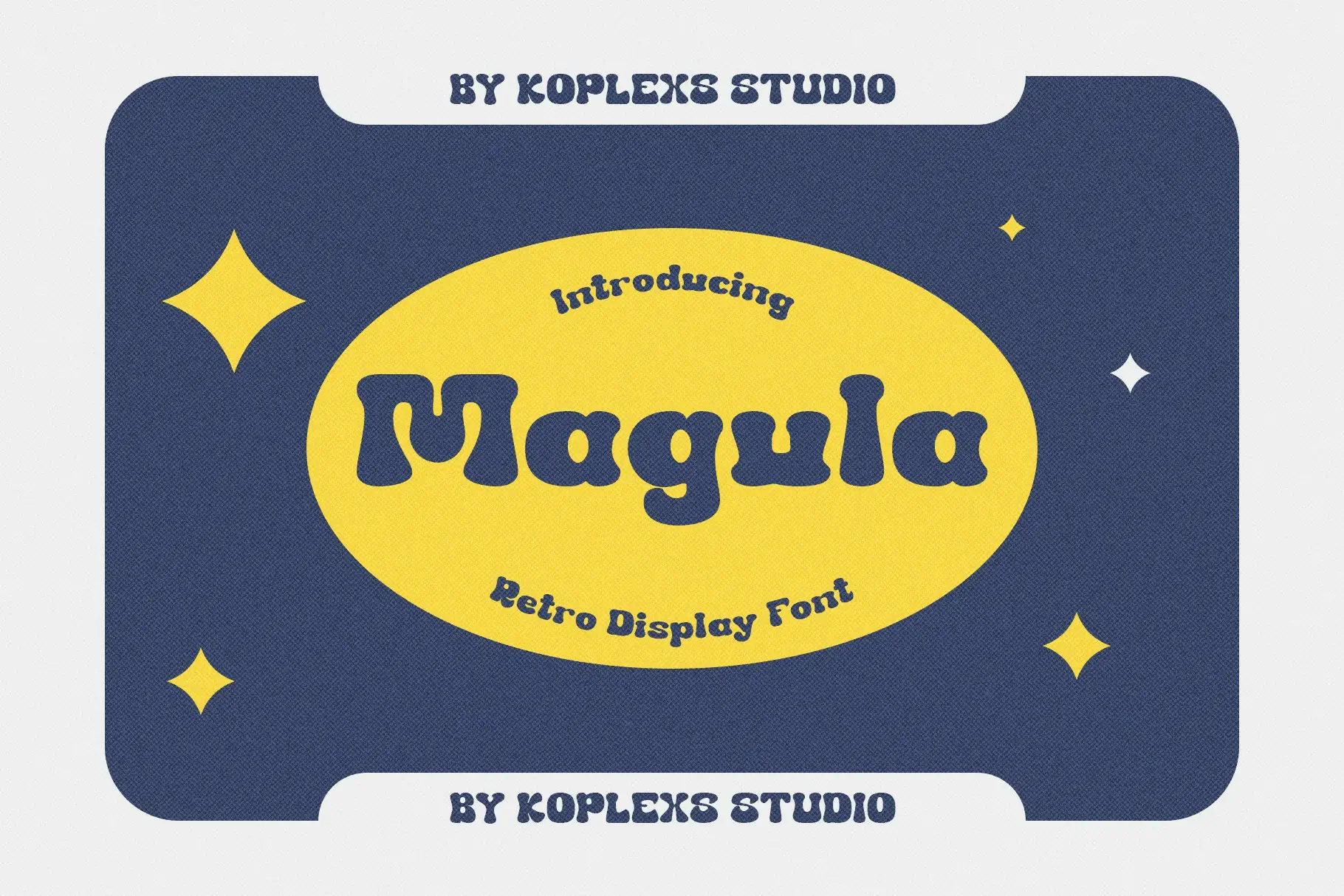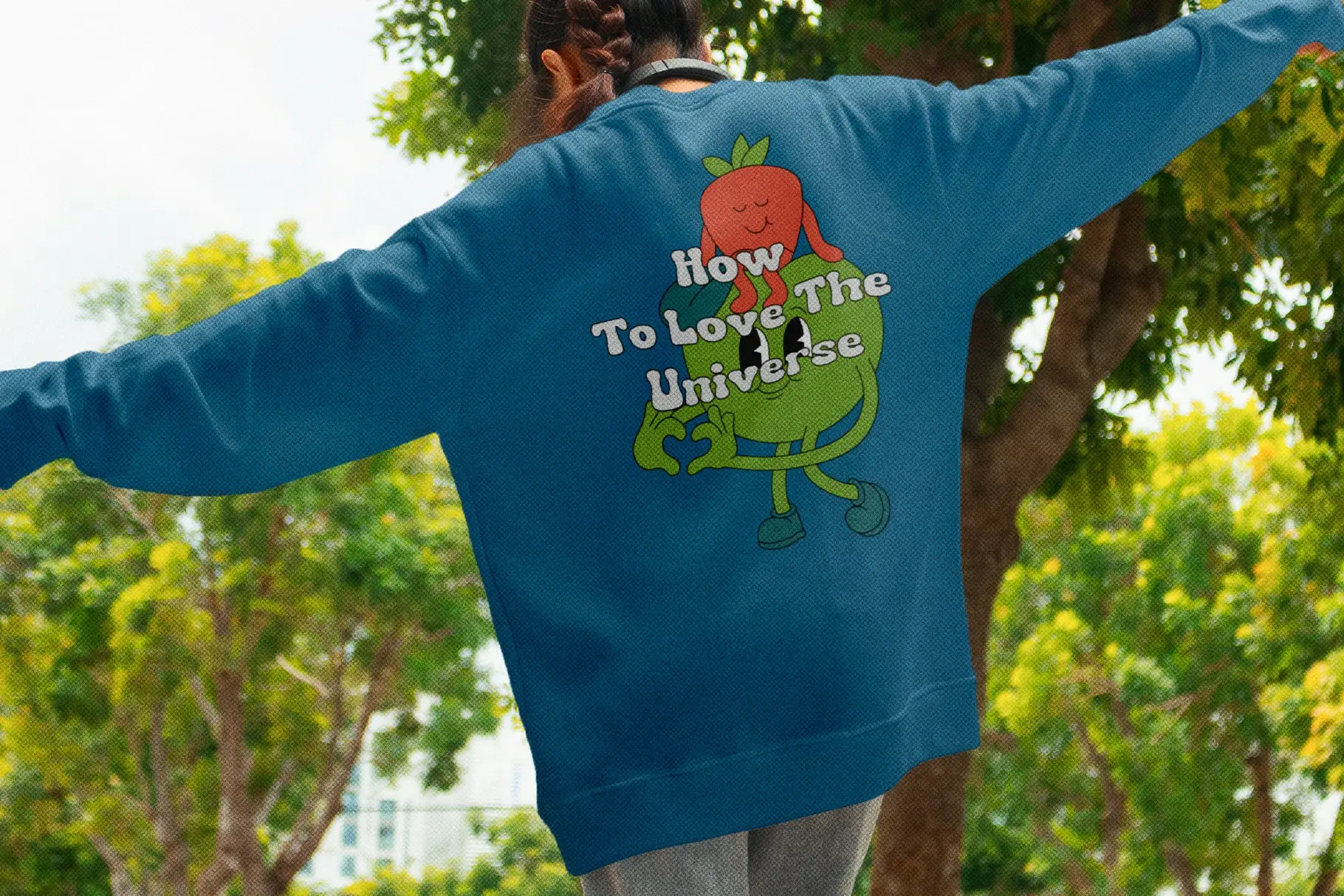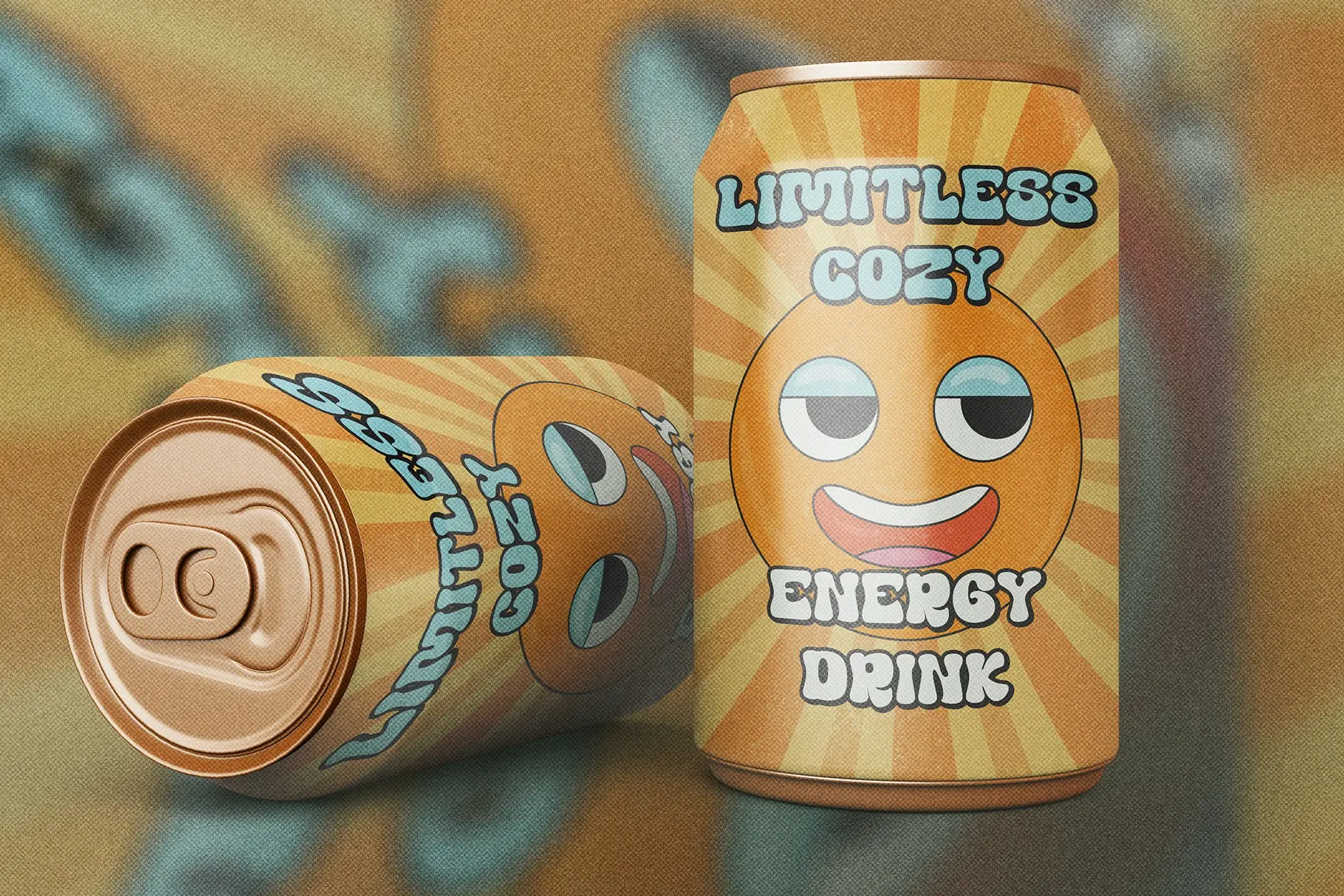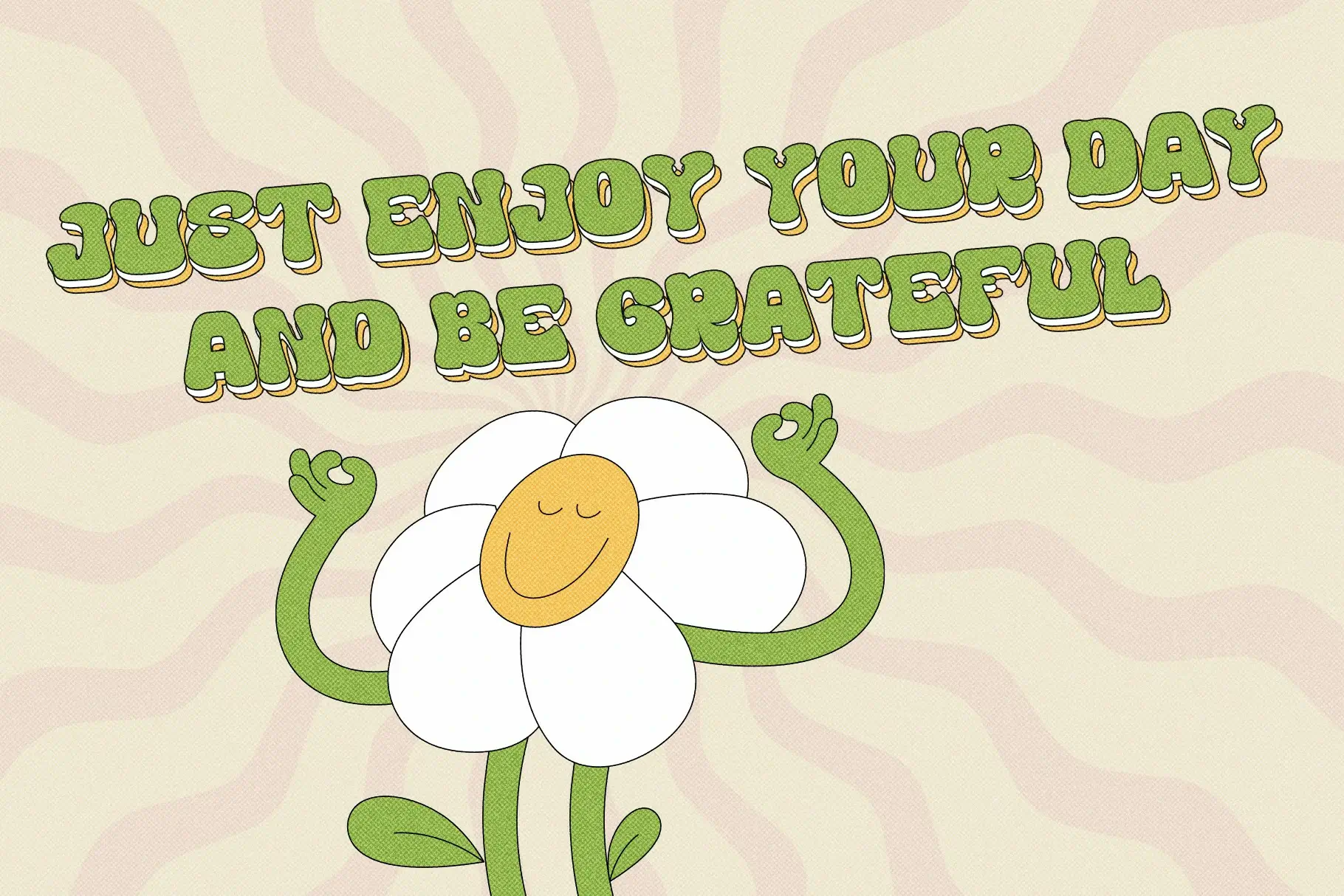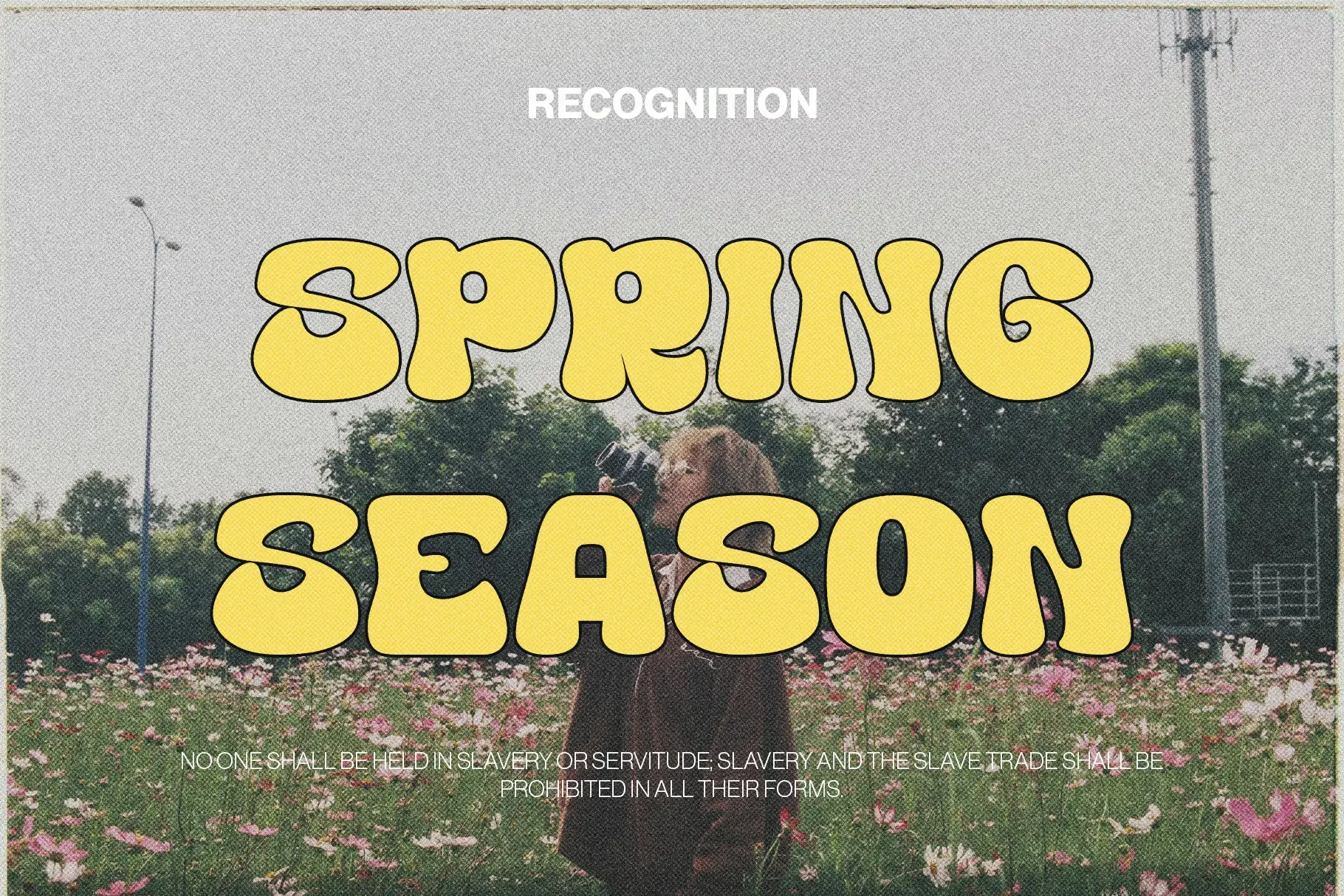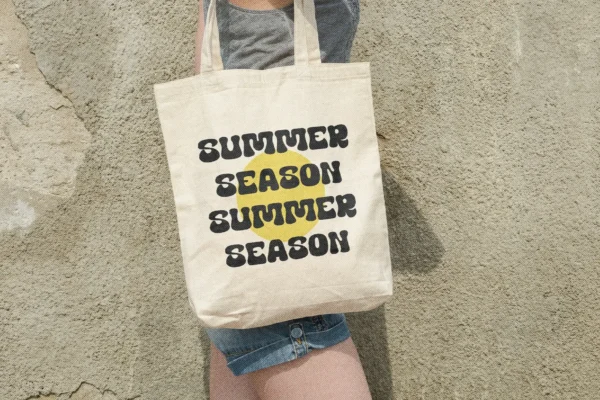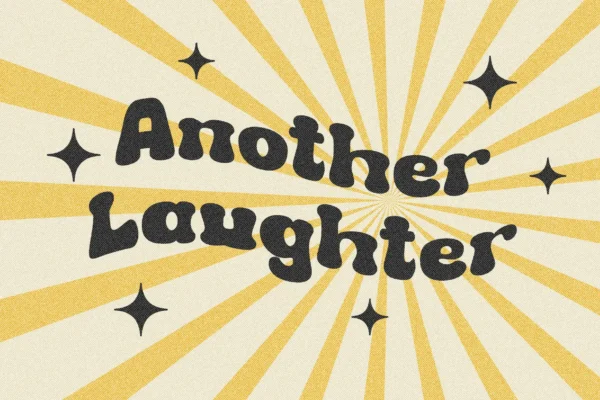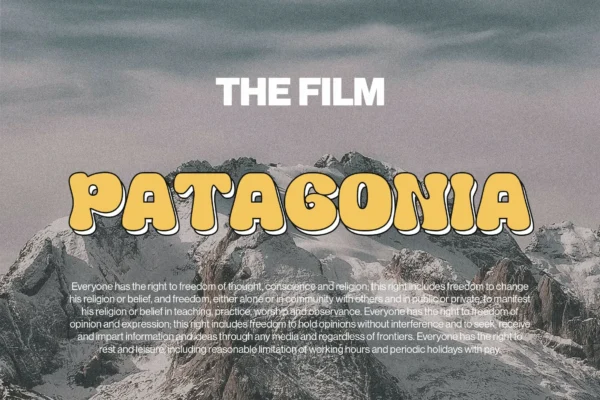
Magula Font
Magula Font is a bold and playful retro display font that brings vintage charm to modern designs. With its groovy vibe and bubble-style letterforms , Magula adds a fun, eye-catching touch to any project. Perfect for logos, branding, packaging, and creative typography — Magula blends nostalgia with personality for truly unique visual impact.
Magula Font: A Retro Display Font with Groovy Vibes
Introducing Magula Font, a captivating retro display font that embodies the essence of nostalgia and creativity. Designed by Koplexs Studio, Magula is a unique typeface that seamlessly blends the charm of vintage aesthetics with modern design sensibilities. This font is perfect for those who want to evoke a sense of warmth, playfulness, and timeless elegance in their projects.
Key Features:
• Retro Font : Magula draws inspiration from mid-20th-century design trends, reminiscent of the vibrant and bold typography seen in vintage advertisements, posters, and signage. Its rounded edges and playful curves give it a nostalgic feel that instantly transports viewers back to a simpler time.
• Groovy Font : With its lively and energetic character, Magula exudes a groovy vibe that is both fun and engaging. The font’s dynamic structure and slightly uneven baseline create a sense of movement and spontaneity, making it ideal for designs that aim to capture attention and convey a sense of joy.
• Bubble Font : The bubble-like quality of Magula adds an extra layer of whimsy and charm. Each letterform is designed with soft, rounded shapes that mimic the look of bubbles, giving text a light, airy, and almost three-dimensional appearance. This characteristic makes Magula particularly well-suited for playful branding, children’s books, and creative marketing materials.
Design Details:
• Versatility : Despite its retro roots, Magula is incredibly versatile. It can be used in a wide range of applications, from logos and packaging to social media graphics and print materials. Its bold and expressive nature ensures that it stands out in any context.
• Readability : While Magula is undeniably eye-catching, it maintains excellent readability even at smaller sizes. This balance between style and functionality makes it a practical choice for designers looking to create impactful yet legible designs.
• Customization : Magula offers various styles and weights, allowing users to tailor the font to their specific needs. Whether you prefer a bolder, more dramatic look or a lighter, more delicate touch, Magula has options to suit every design requirement.
Magula Font Applications:
1. Branding and Logos : Magula’s distinctive retro and groovy elements make it an excellent choice for brands seeking to establish a unique identity. Its playful nature is particularly appealing for businesses in the food, beverage, and entertainment industries.
2. Packaging Design : Use Magula to create packaging that pops on shelves. Its bubble-like qualities and vibrant personality can help products stand out and attract customers.
3. Social Media and Digital Content : Magula’s bold and expressive style is perfect for creating eye-catching social media posts, headers, and captions. Its retro charm adds a touch of authenticity and nostalgia to digital content.
4. Print Materials : From brochures to posters, Magula brings a fresh and inviting aesthetic to print projects. Its versatility ensures that it can adapt to various formats and mediums.
Why Choose Magula Font?
• Uniqueness : Magula stands out from other retro fonts due to its combination of vintage charm and modern flair. Its bubble-like design and groovy energy set it apart, making it a truly one-of-a-kind typeface.
• Emotional Appeal : The font evokes feelings of happiness, nostalgia, and excitement. Its playful and warm characteristics can help connect with audiences on an emotional level, leaving a lasting impression.
• Professional Quality : Developed by Koplexs Studio, Magula is crafted with precision and care. It undergoes rigorous testing to ensure optimal performance across different devices and platforms, providing designers with a reliable tool for their projects.
Conclusion:
Magula Font is more than just a typeface; it’s a visual experience that captures the spirit of the past while embracing the possibilities of the present. Whether you’re designing a logo, creating a poster, or crafting a social media campaign, Magula offers a delightful blend of retro, groovy, and bubble-inspired elements that will elevate your work to new heights. Embrace the charm of Magula and let your designs shine with a touch of nostalgia and creativity.